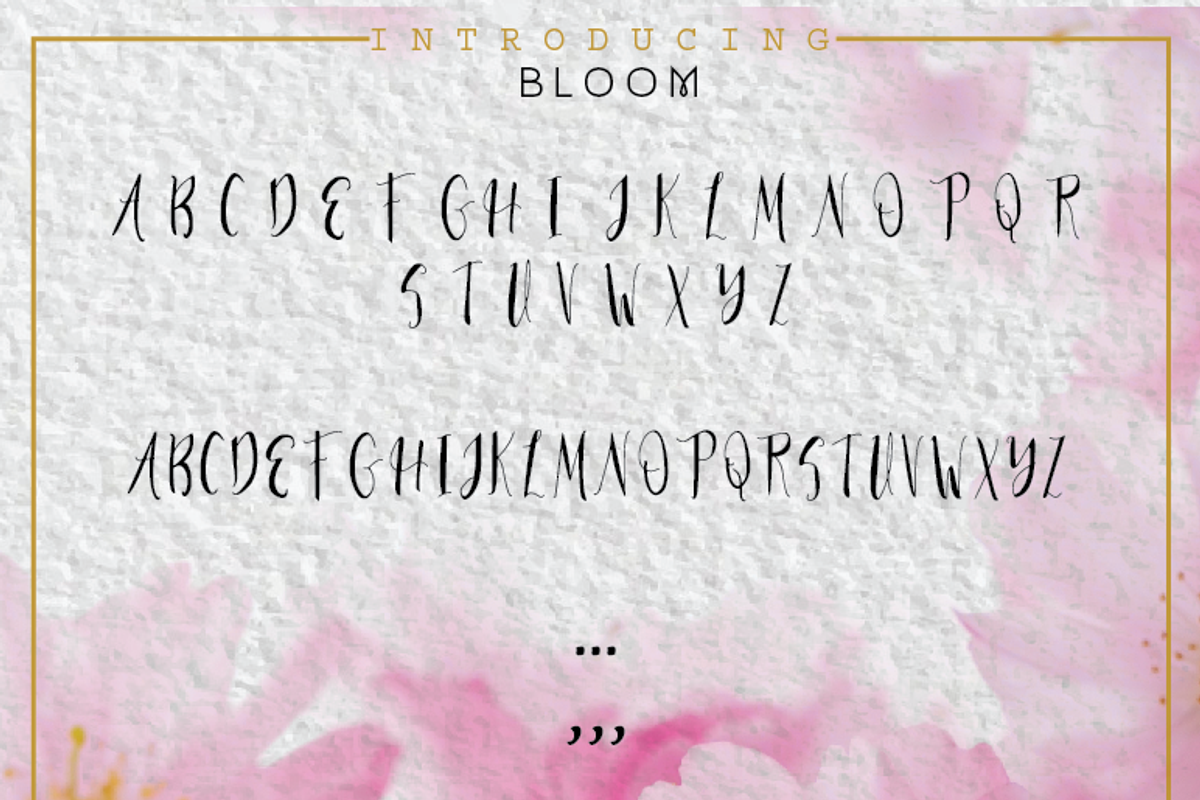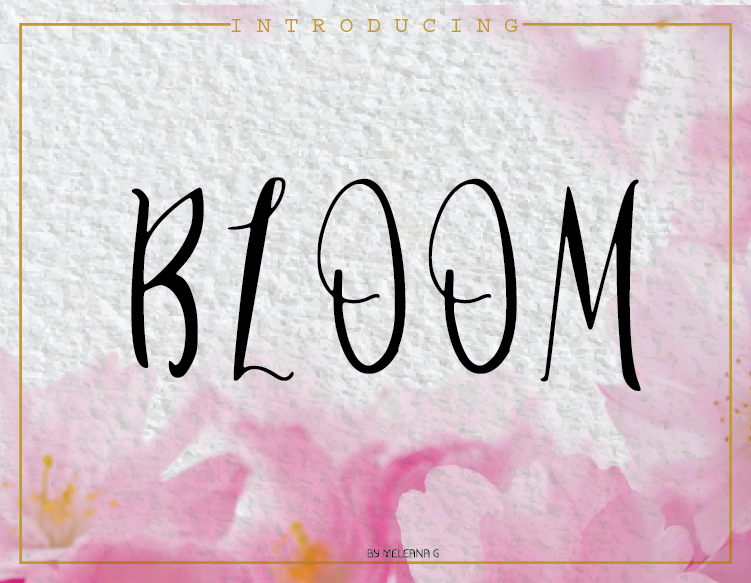
BLOOM FONT
The Bloomr font includes a full set of capital letters. Perfect for your blog, website, flyers or posters. Want to send a message that just screams spring? well this font outta do the job perfectly! these beautiful script calligraphy font is currently only in uppercase